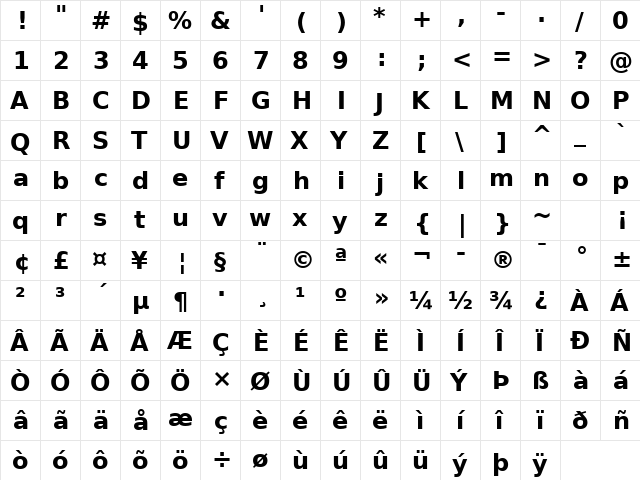
DejaVu Sans Bold Font Preview
DejaVu Sans Bold
DejaVu Sans Bold Font Details
| Foundry | DejaVu fonts team |
Design Context for DejaVu Sans Typeface
DejaVu Sans offers clean, dependable letterforms without strong stylistic allegiance, making it a practical choice for designers who need flexibility. Its bold stroke weight gives it real presence on the page.